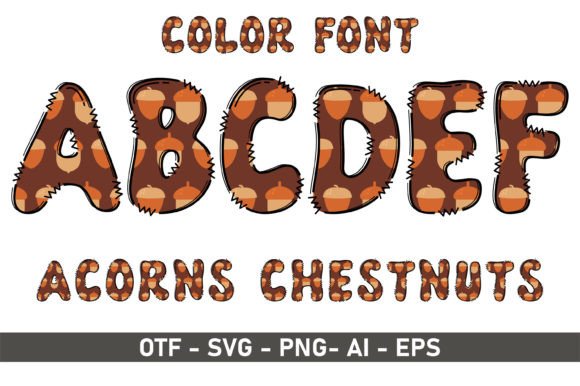
Dive into the whimsical world of Acorns Chestnuts Font family, a collection of captivating and colorful fonts that will bring life to your creative projects. Each font is an artistic masterpiece, meticulously crafted by Veil, a renowned font designer. Let your imagination run wild as you browse through this collection, discovering fonts that are perfect for children's books, posters, invitations, greeting cards, and more.
Unleash the playful spirit of Whimsical, a font that dances across the page with its charming curves and playful strokes. Its vibrant colors and joyful energy will make your designs pop, capturing the attention of your audience and leaving a lasting impression.
Explore the artistic wonders of Artistic, a font that combines elegance and creativity. Its intricate details and flowing lines will add a touch of sophistication to your designs, making them stand out from the ordinary. Let your words flow with grace and fluidity as you create stunning headlines, logos, and invitations that speak volumes.
Embrace the cheerful spirit of Joyful, a font that radiates happiness and optimism. Its cheerful letterforms and energetic colors will spread joy wherever they appear. Bring a smile to your readers' faces as they engage with your designs, whether it's a cheerful poster, an inspiring quote, or a heartwarming greeting card.